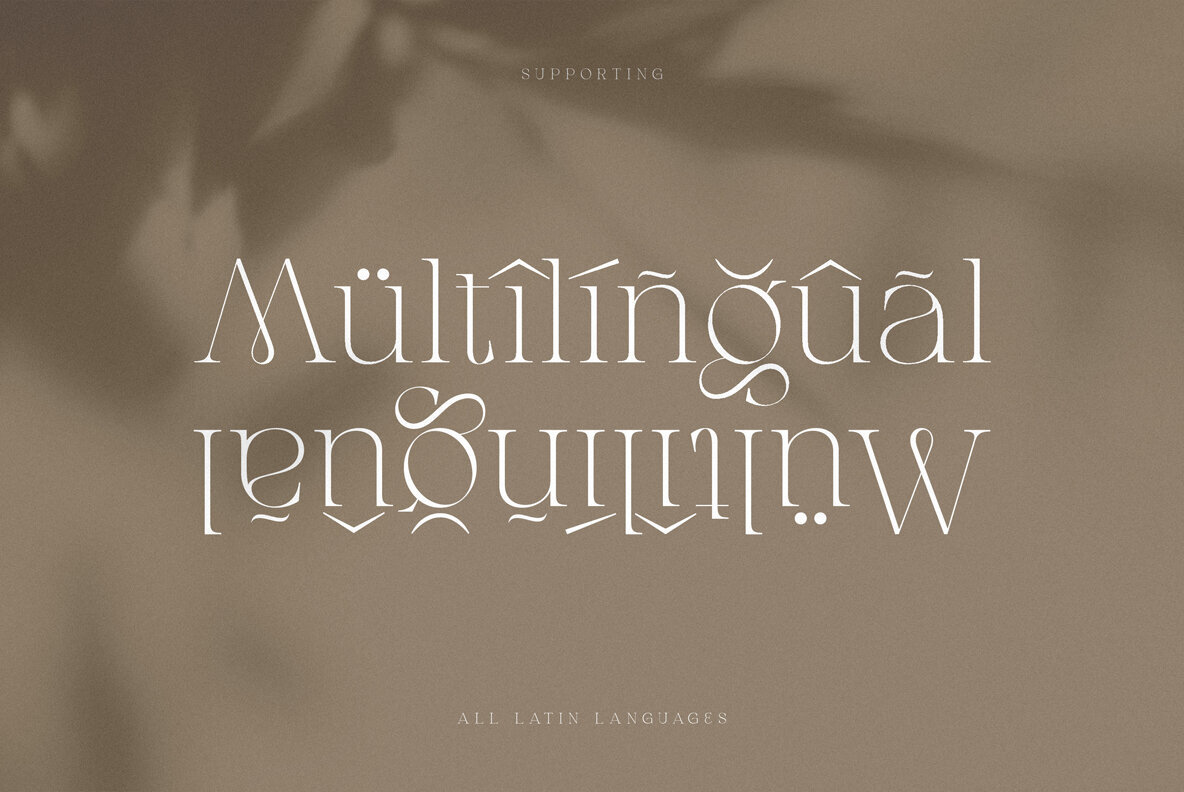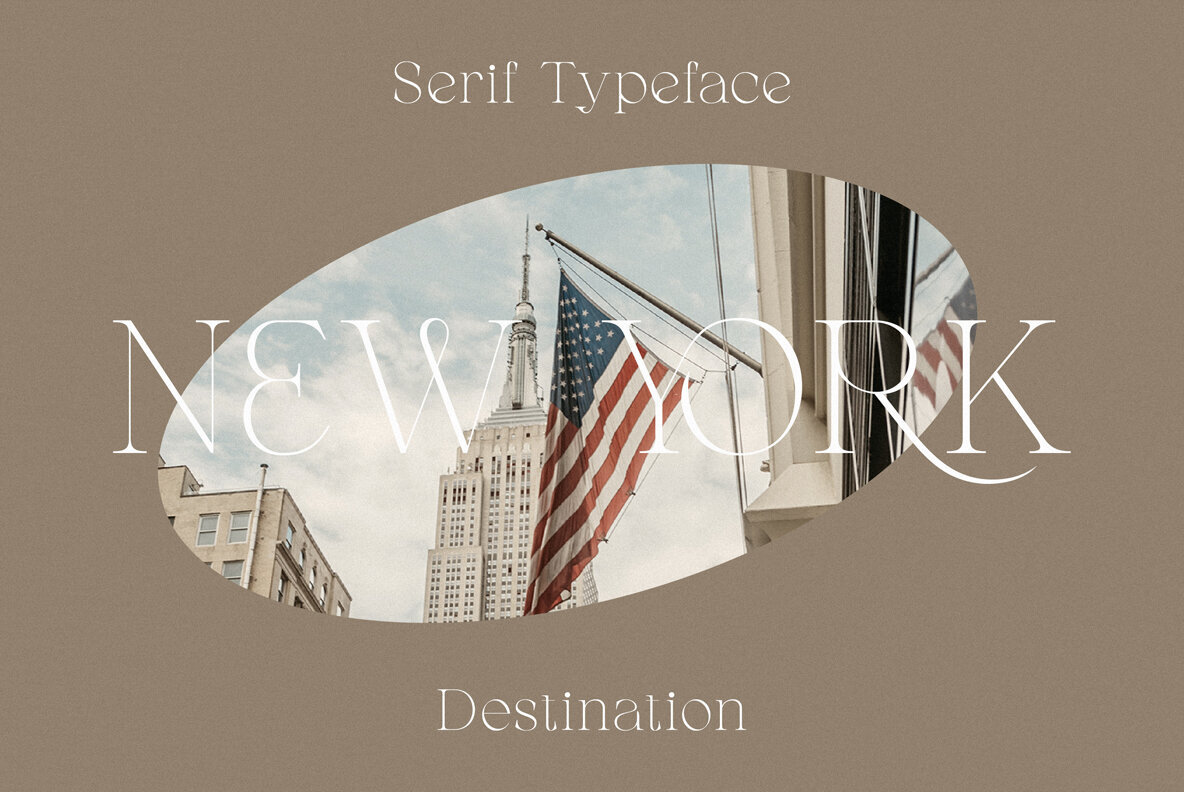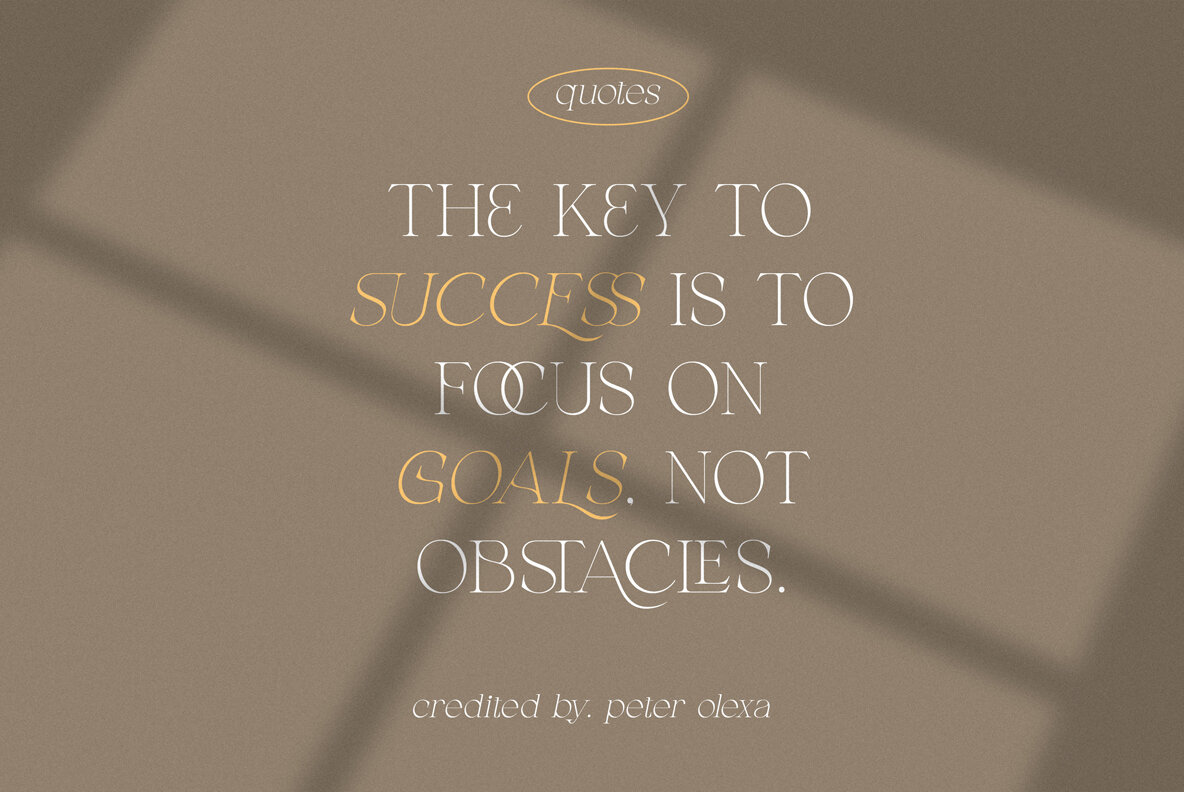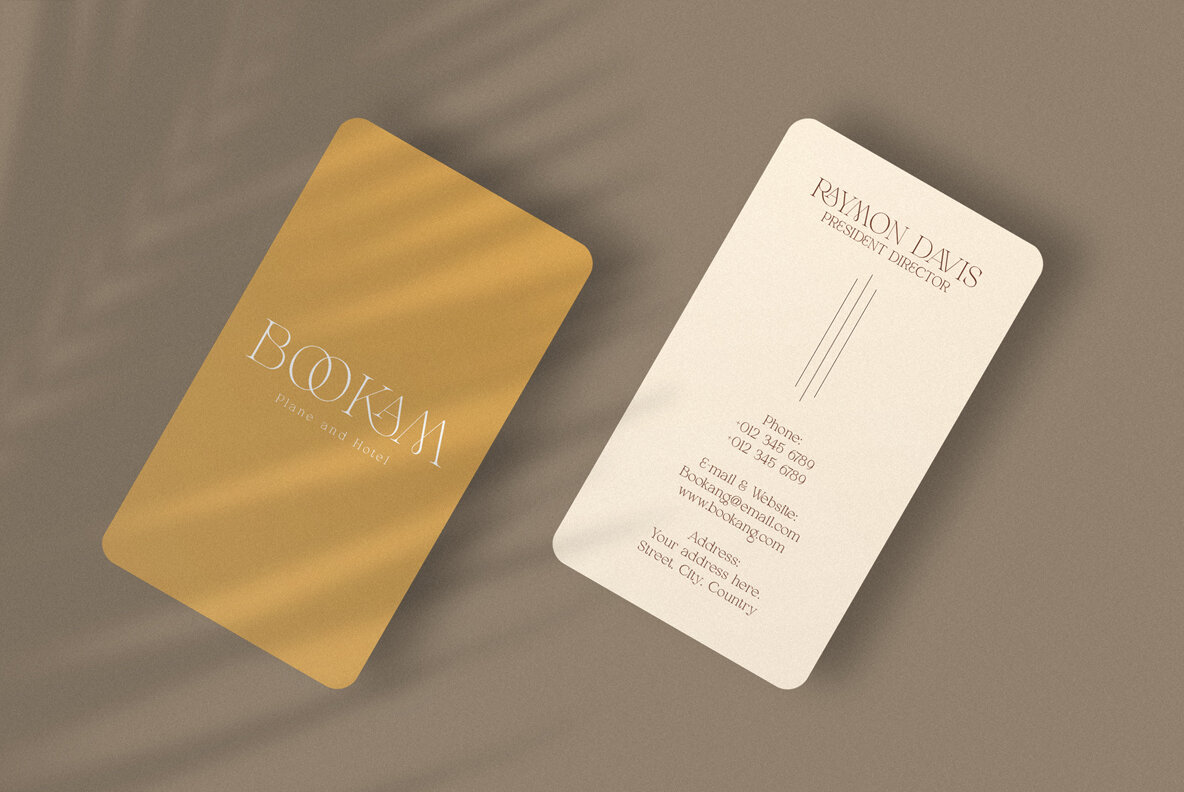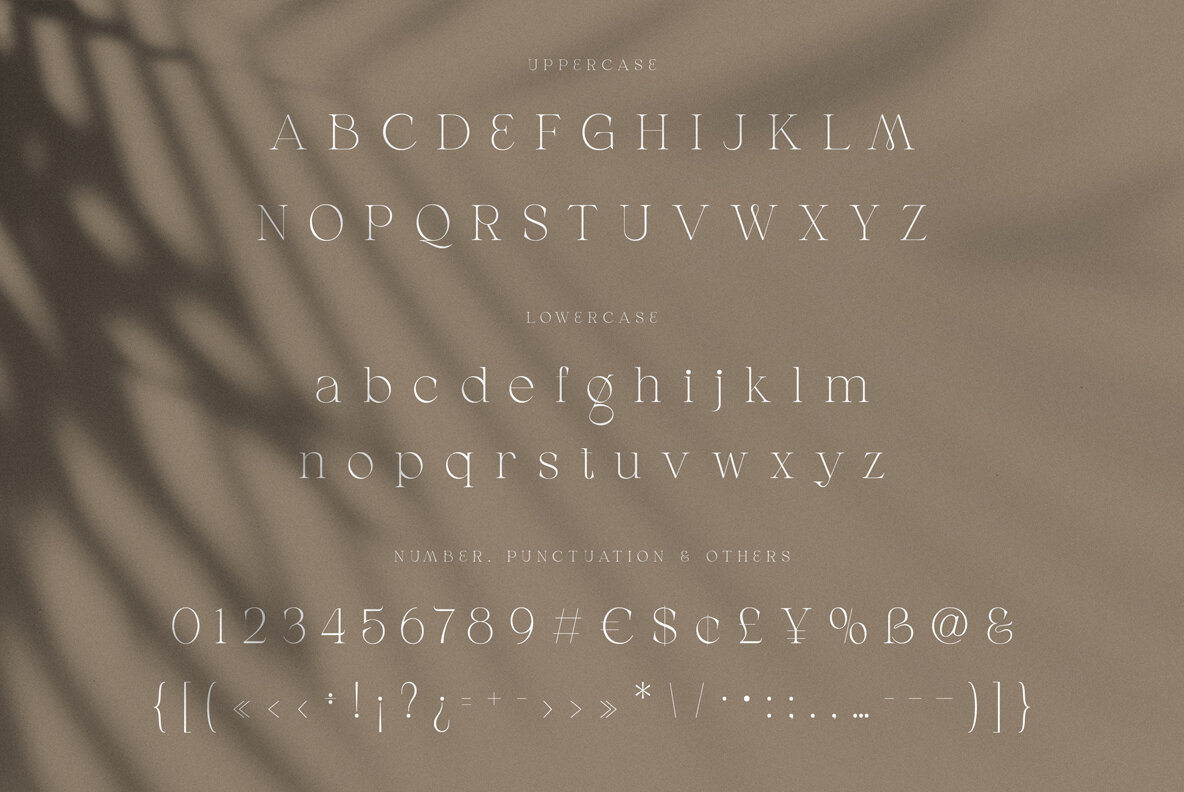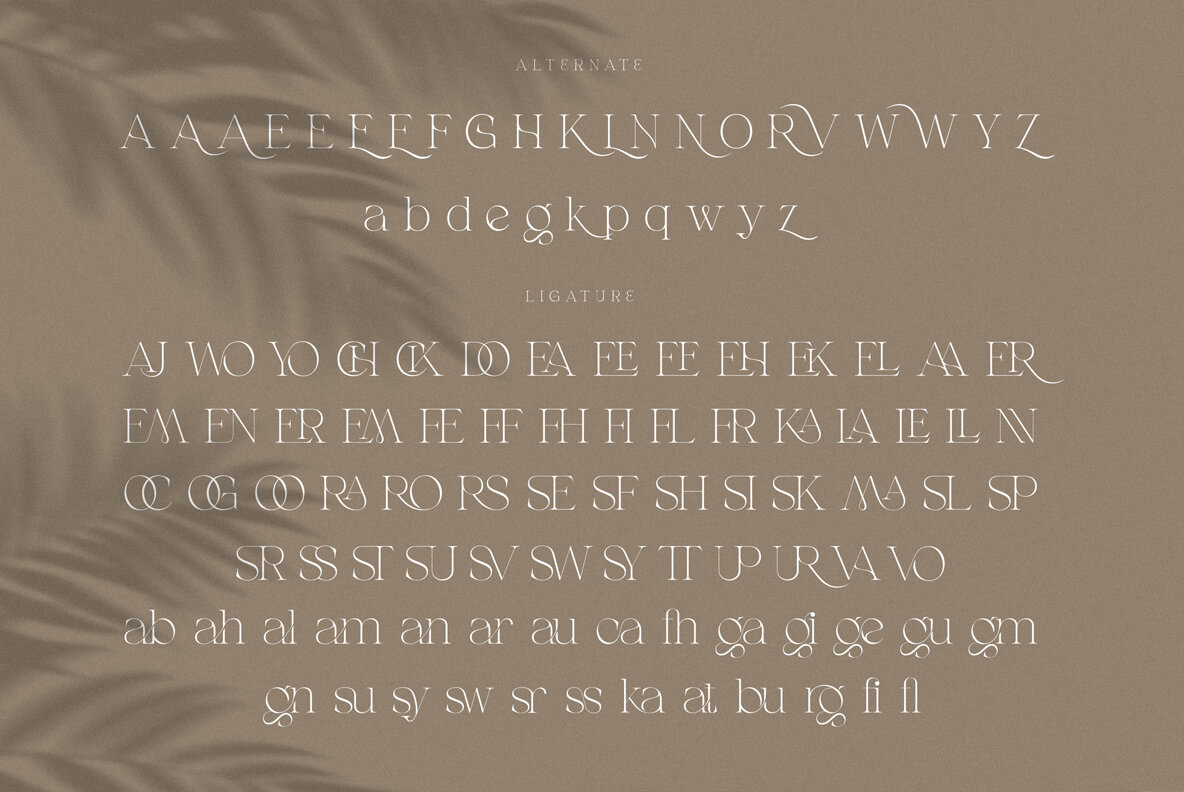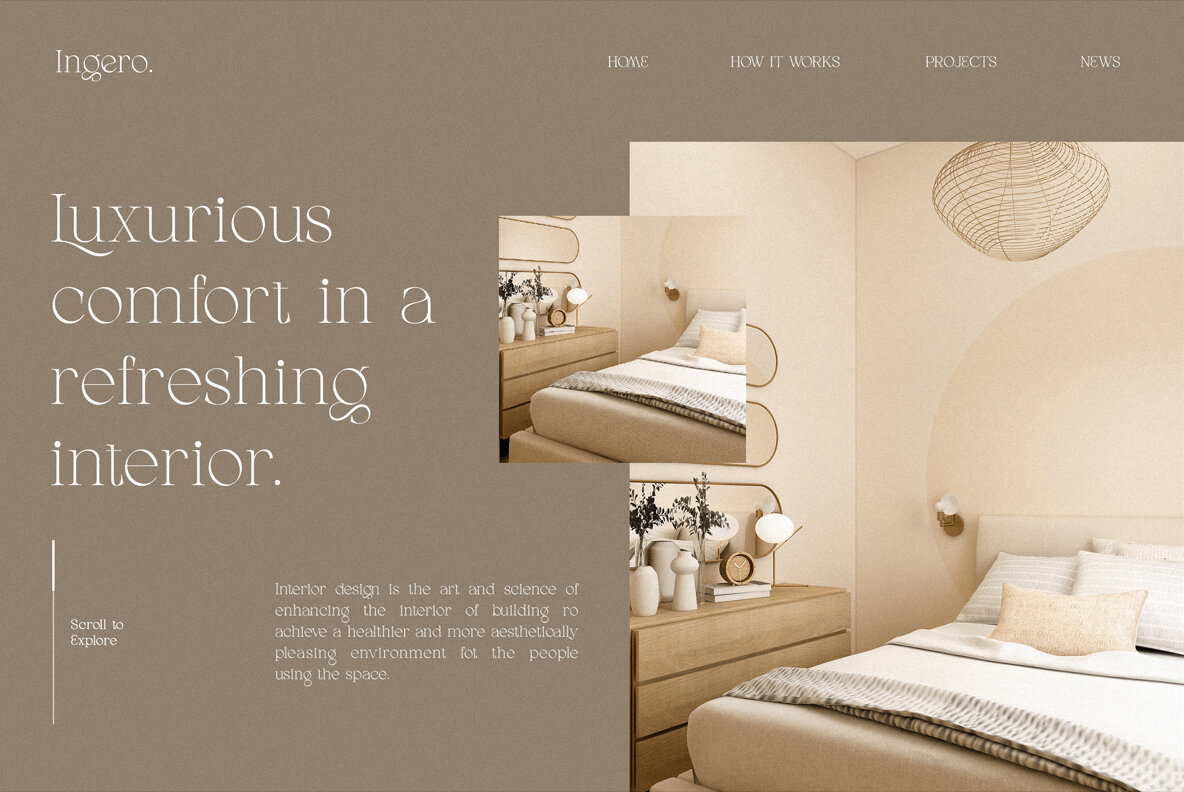
Gatlinburg Font
Upgrade your branding game with Gatlinburg, the trendy and modern serif font perfect for your fancy projects. With its elegant and classic style, Gatlinburg is a surefire way to make your designs stand out from the competition. Gatlinburg is packed with features that will help you create stunning designs. With two styles - Regular and Italic - you'll have the flexibility to choose the one that fits your project best. Plus, Gatlinburg comes with multilingual support, making it a versatile option for companies with a global presence. One of Gatlinburg's standout features is the wide range of alternate characters and ligatures it offers. These additional design elements will help you create unique and original logo designs and website headers that are sure to impress. Gatlinburg's clean and modern style makes it the perfect choice for modern branding projects. Whether you're creating a logo or designing a website, this font will give your designs a professional and polished look. So why not take advantage of all that Gatlinburg has to offer? With its wide range of features and versatility, this font is a must-have for any designer looking to take their branding projects to the next level.